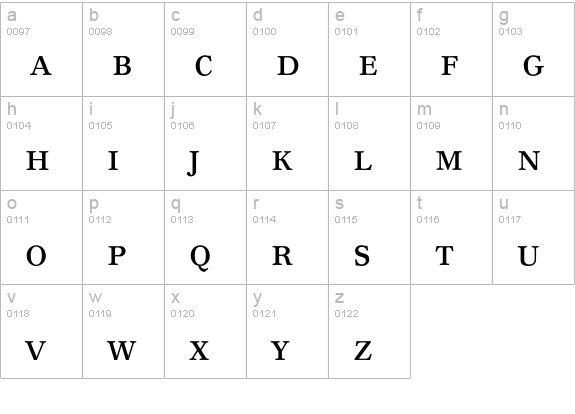
Cremona BQ Expert Regular is the standard, neutral variant in the Cremona typeface family \xE2\x80\x94 well suited to general body text, paragraphs, and standard typographic work.
Cremona BQ Expert Regular font is a sophisticated and elegant typeface that exudes professionalism and modernity. With its clean lines and classic design, this font is perfect for a wide range of design projects, from logos to branding materials to print materials. The font features a balanced combination of sharp edges and subtle curves, giving it a unique and eye-catching appearance. What sets Cremona BQ Expert Regular font apart is that it is available for free download at FontsMarket.com. This means that you can easily access this high-quality font without any cost, making it a valuable resource for designers and creatives looking to elevate their projects. Whether you're working on a personal or commercial project, Cremona BQ Expert Regular font is sure to add a touch of sophistication and style.